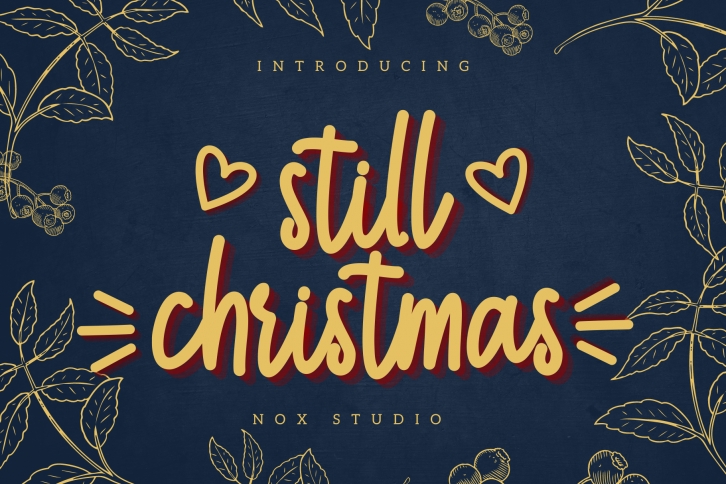
Still Christmas is a lovely script font featuring charming, playful characters that seem to dance along the baseline. This font is PUA encoded which means you can access all glyphs and swashes with ease!